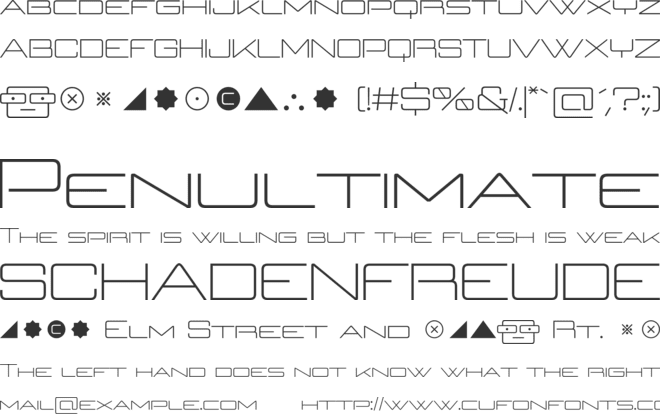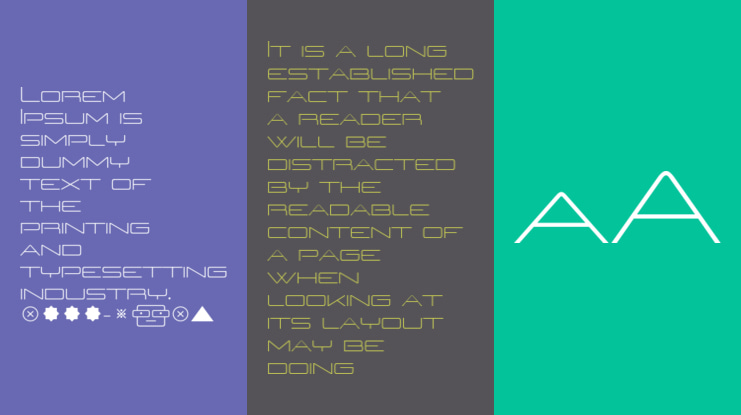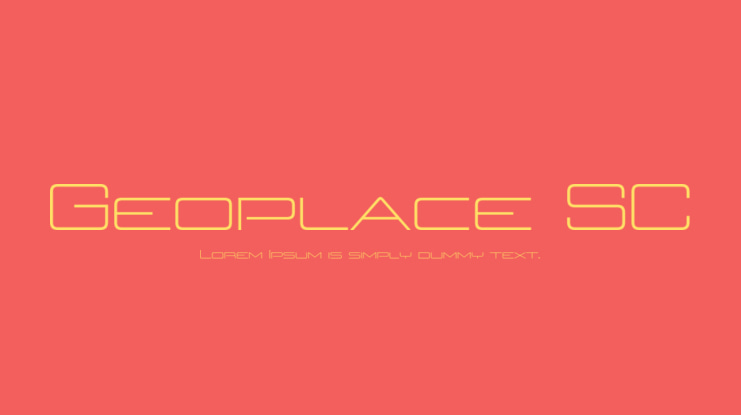
Geoplace SC Font Family
Geoplace Small Caps is a versatile typeface that blends style and functionality. Its expanded proportions create a sense of modern elegance and spaciousness, lending it a cohesive aesthetic.
The font is available in five weights, ranging from thin and graceful to robust and impactful. Additionally, it offers advanced OpenType features and alternate letter and number options.